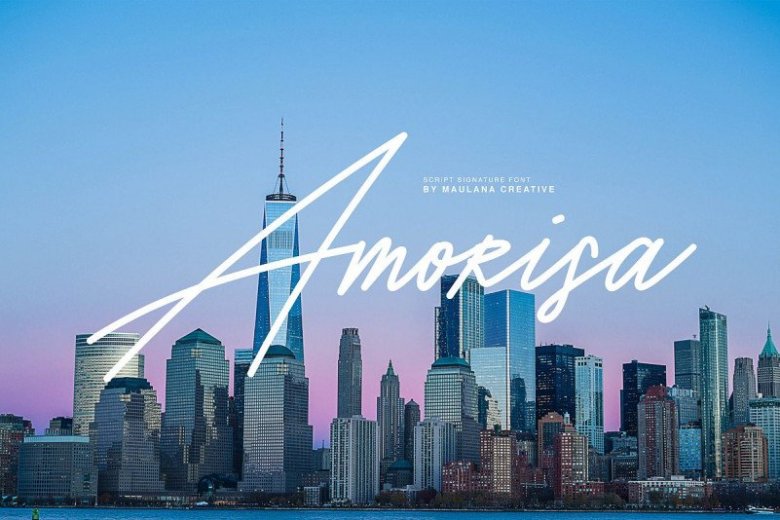
Amorisa Signature Font
This is handwritten script font with signature style. This is a simple and bold signature font style designed with decisive and strong lines, provides an authoritative impression! Proudly presents latest product Amorisa Font! It is designed and shared by Maulana Creative. Give your designs an authentic handcrafted feel. “Amorisa Font” is perfectly suited to signature, stationery, logo, typography quotes, magazine or book cover, website header, clothing, branding, packaging design and more.